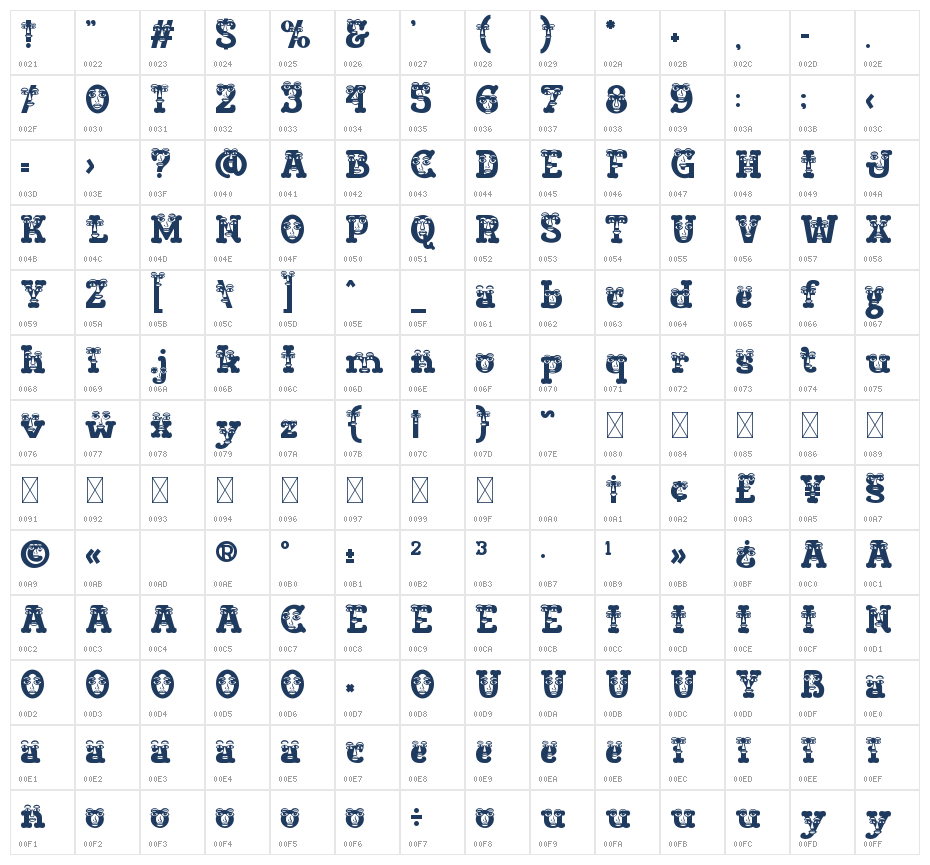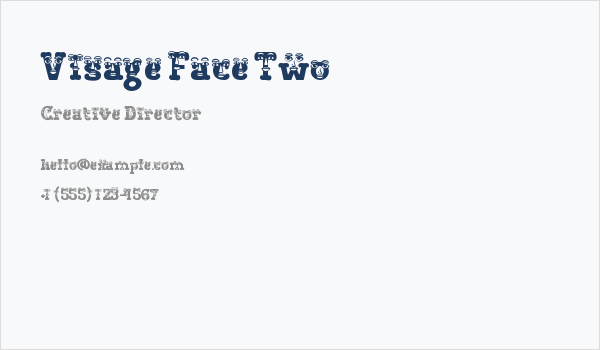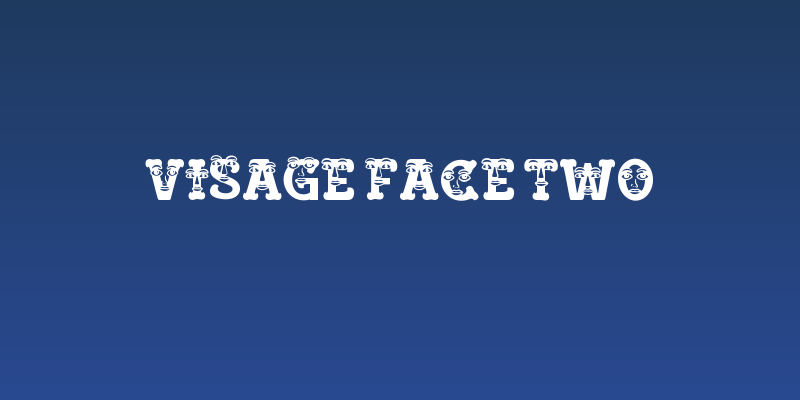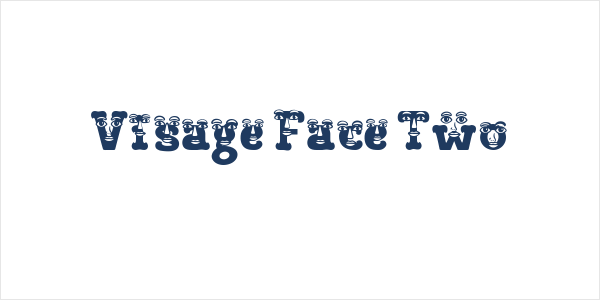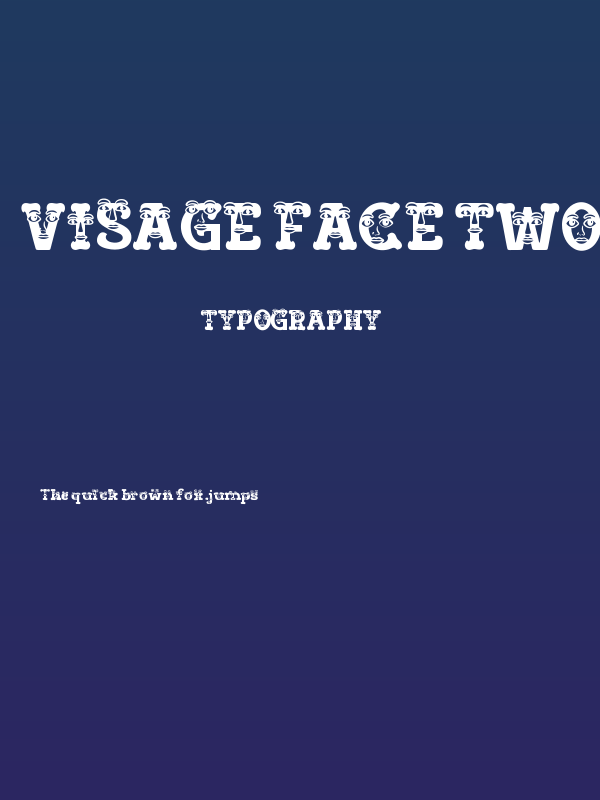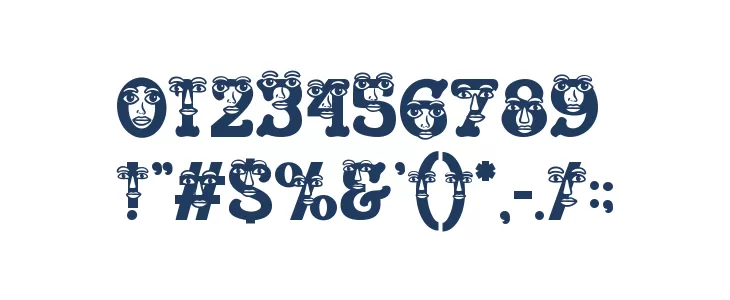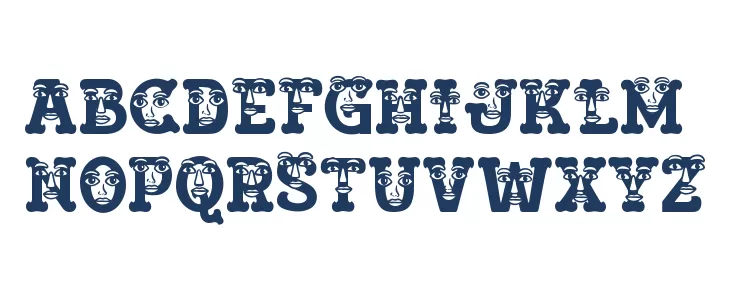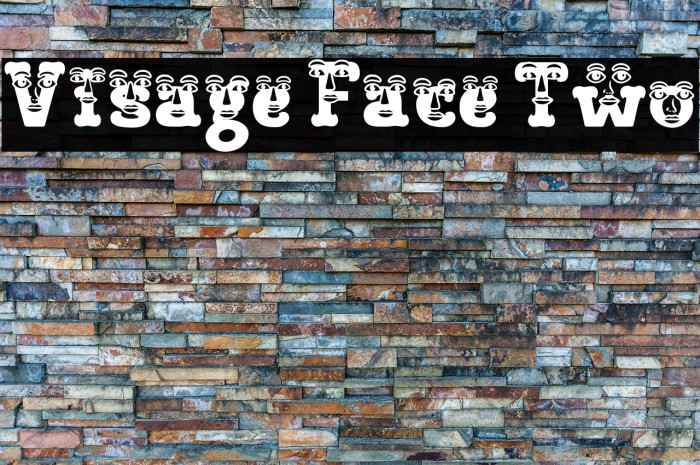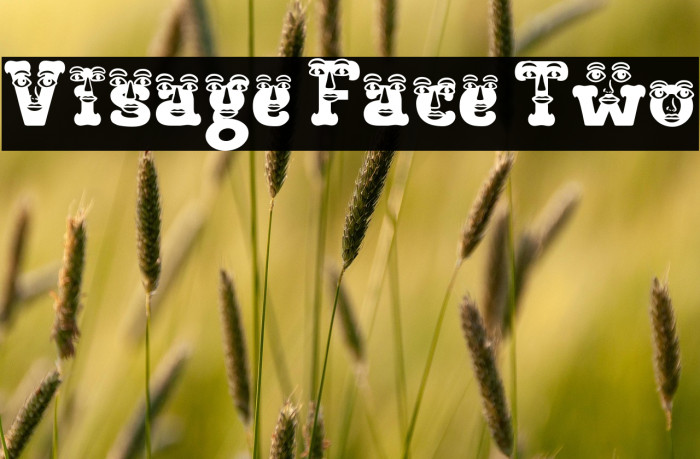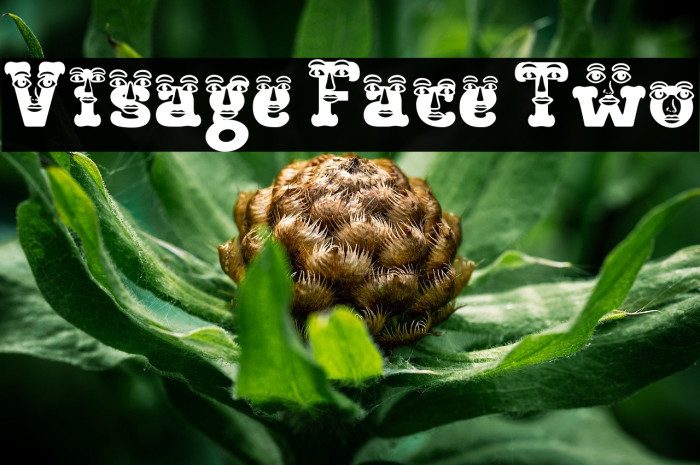
Visage Face Two Font
Visage Face Two Description
Decorative font with faces integrated into each character, featuring a playful and artistic style.
| Overall Style | Playful, Artistic, Decorative |
| Use Case | Headlines, Logos, Artistic designs |